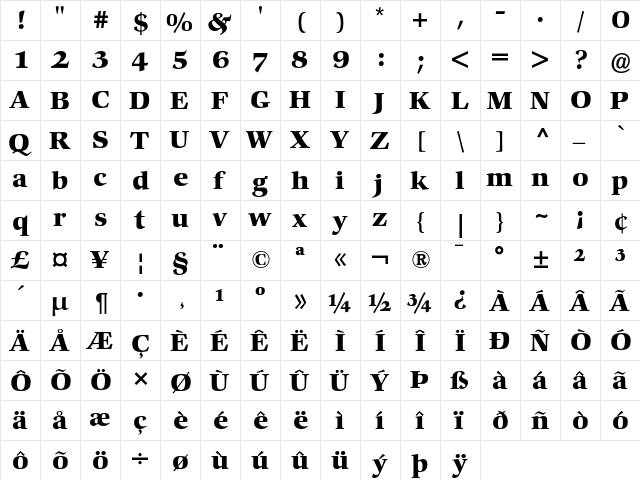
Comenius Antiqua Bold
Design Context for Comenius Antiqua Typeface
Comenius Antiqua takes a measured approach to typography — its balanced proportions and neutral character make it a reliable workhorse for both digital and print work. Its bold stroke weight gives it real presence on the page.
Pro Tip: Pair Comenius Antiqua with a font of contrasting weight or personality to build a more expressive typographic hierarchy.